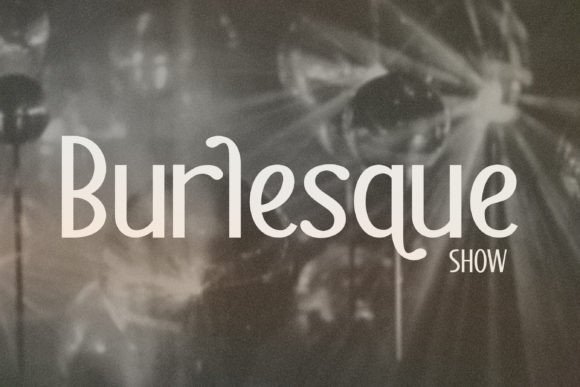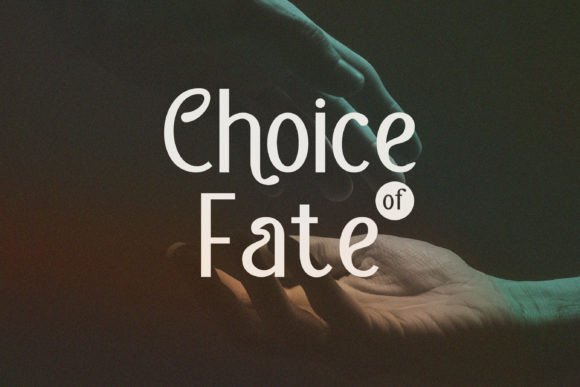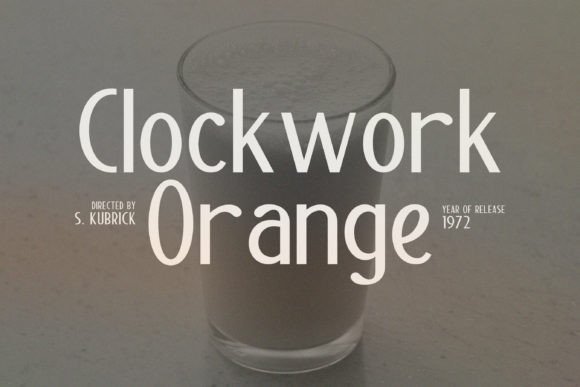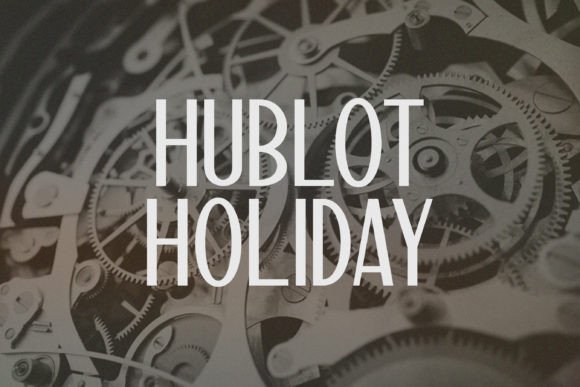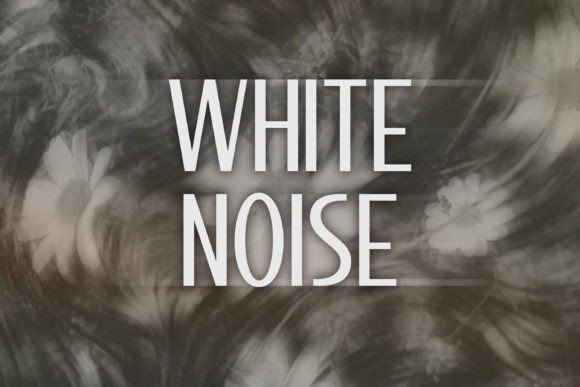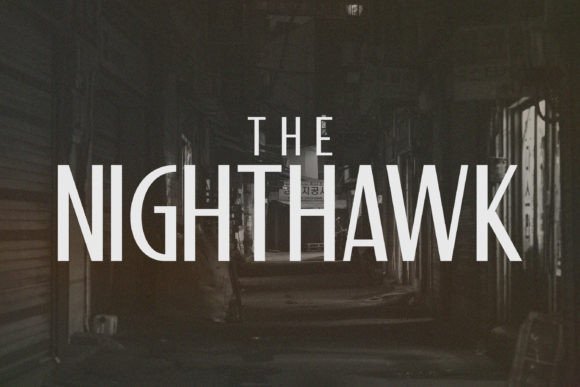
Introducing Chaline: A Modern Elegant Sans Serif Font
In the world of typography, a font can make all the difference in the aesthetic and tone of a project. For designers and crafters looking for a touch of modern elegance, Chaline is a game-changer. This refined and contemporary sans serif font seamlessly blends sophistication with versatility, making it the perfect choice for a wide range of applications.
The Essence of Chaline
Chaline’s design is characterized by its clean lines and subtle curves, which evoke a sense of elegance and poise. The font’s sans serif design ensures a crisp and modern look, while its carefully crafted letterforms convey a sense of luxury and refinement. Whether you’re working on a high-end branding project, a stylish editorial layout, or an elegant invitation, Chaline is the ideal choice to add a touch of class.
Key Features of Chaline
- Clean and Modern Design: Chaline’s sans serif design ensures a clean and modern aesthetic that’s perfect for contemporary projects.
- Elegant Letterforms: The font’s carefully crafted letterforms convey a sense of luxury and refinement, making it ideal for high-end branding and editorial projects.
- Versatile: Chaline is a versatile font that can be used for a wide range of applications, from luxury branding to stylish social media graphics.
- Easy to Read: The font’s clear and legible design ensures that it’s easy to read, even at smaller sizes.
Use Cases for Chaline
Chaline’s versatility makes it suitable for a wide range of projects, including:
- Luxury Branding: Chaline’s elegant design makes it perfect for high-end branding projects, such as logos, business cards, and letterheads.
- Editorial Layouts: The font’s clean and modern design ensures that it’s ideal for editorial layouts, such as magazines, newspapers, and books.
- Elegant Invitations: Chaline’s sophisticated design makes it perfect for elegant invitations, such as wedding invitations, birthday invitations, and graduation announcements.
- Stylish Social Media Graphics: The font’s modern and elegant design ensures that it’s ideal for stylish social media graphics, such as Instagram posts, Facebook posts, and Twitter headers.
Why Choose Chaline?
With so many fonts available, why choose Chaline? Here are just a few reasons:
- Unique Design: Chaline’s unique design sets it apart from other sans serif fonts, making it a great choice for designers looking for something new and exciting.
- High-Quality: The font is designed to high-quality standards, ensuring that it looks great in any project.
- Easy to Use: Chaline is easy to use and can be easily integrated into any design project.
In conclusion, Chaline is a modern elegant sans serif font that’s perfect for designers and crafters looking for a touch of sophistication and versatility. Its clean lines, subtle curves, and elegant letterforms make it ideal for a wide range of projects, from luxury branding to stylish social media graphics. With its unique design, high-quality construction, and excellent support, Chaline is a great choice for any design project.